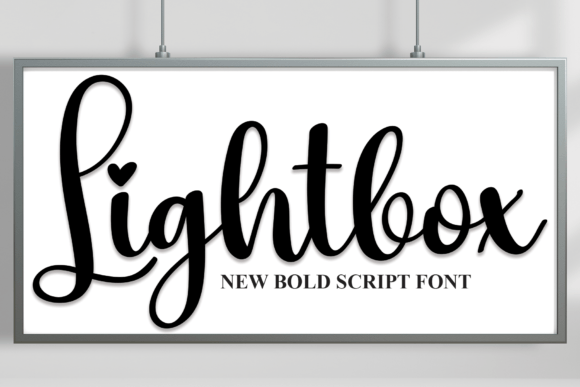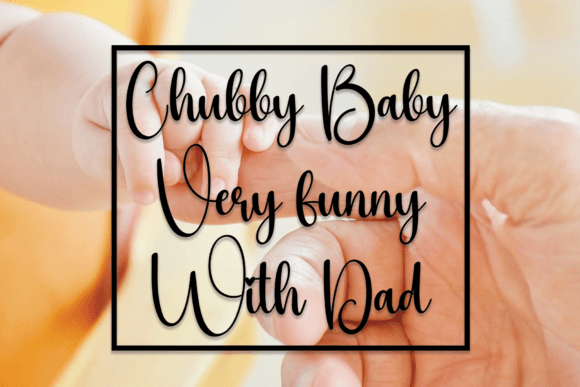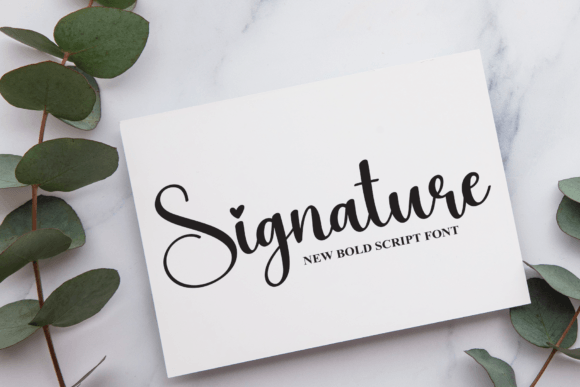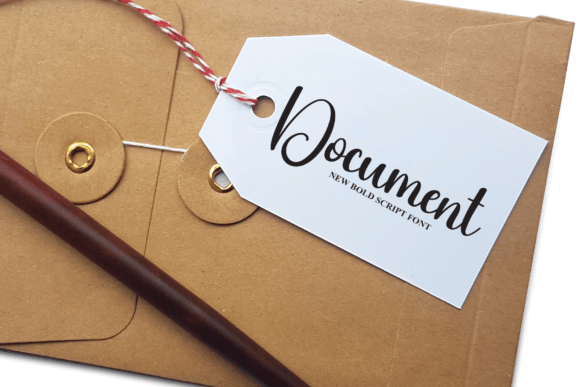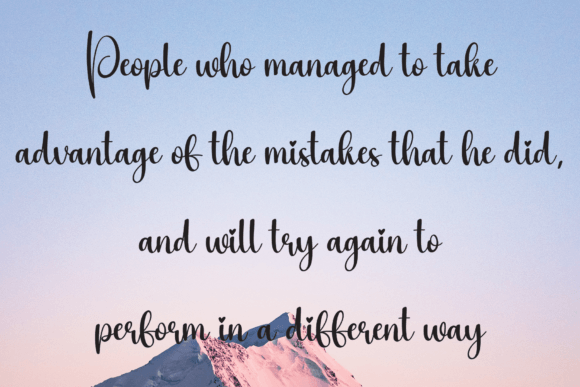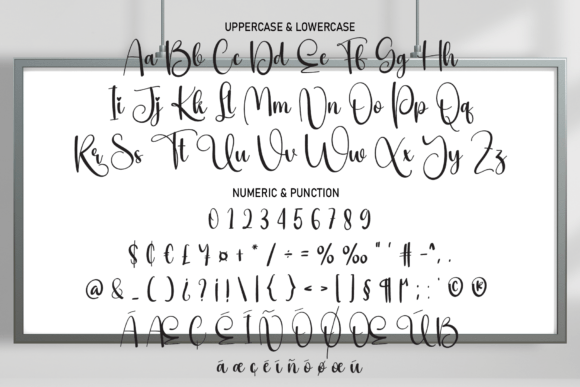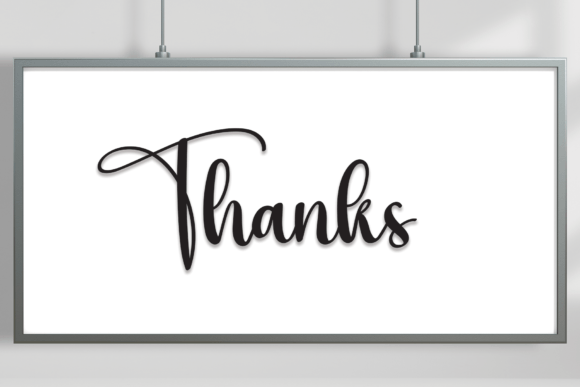
Lightbox Font
About Lightbox Font
“Lightbox’s latest style letters offer a perfect blend of modernity and charm, making them an excellent choice for a variety of applications. Whether used for wall displays, wedding invitations, social media post logos, advertisements, product packaging, designs, labels, photography, watermarks, invitations, or stationery, these letters bring a handwritten taste to any project.
The appeal of Lightbox’s latest style lies in its contemporary design and versatility, making it suitable for a wide range of creative endeavors. This font becomes a reliable option for designers seeking a typeface that seamlessly combines a handwritten aesthetic with a modern touch.
Whether you’re creating a stylish logo or designing elegant wedding invitations, Lightbox’s latest style stands out as a font that enhances the overall visual appeal. Its letters exude charm and adapt effortlessly to diverse design contexts.
Imagine Lightbox’s latest style elevating your projects, bringing a handwritten taste that adds character and uniqueness. The font becomes the defining element that sets your designs apart, creating a visual experience that resonates with authenticity and style.
As you explore the nuances of Lightbox’s latest style, you’ll discover its potential to transform ordinary projects into visually captivating expressions. Let it be the font that infuses a touch of handwritten charm into your creative vision, making your designs stand out with a delightful and modern aesthetic. With Lightbox’s latest style, every letter becomes a brushstroke of contemporary elegance.”